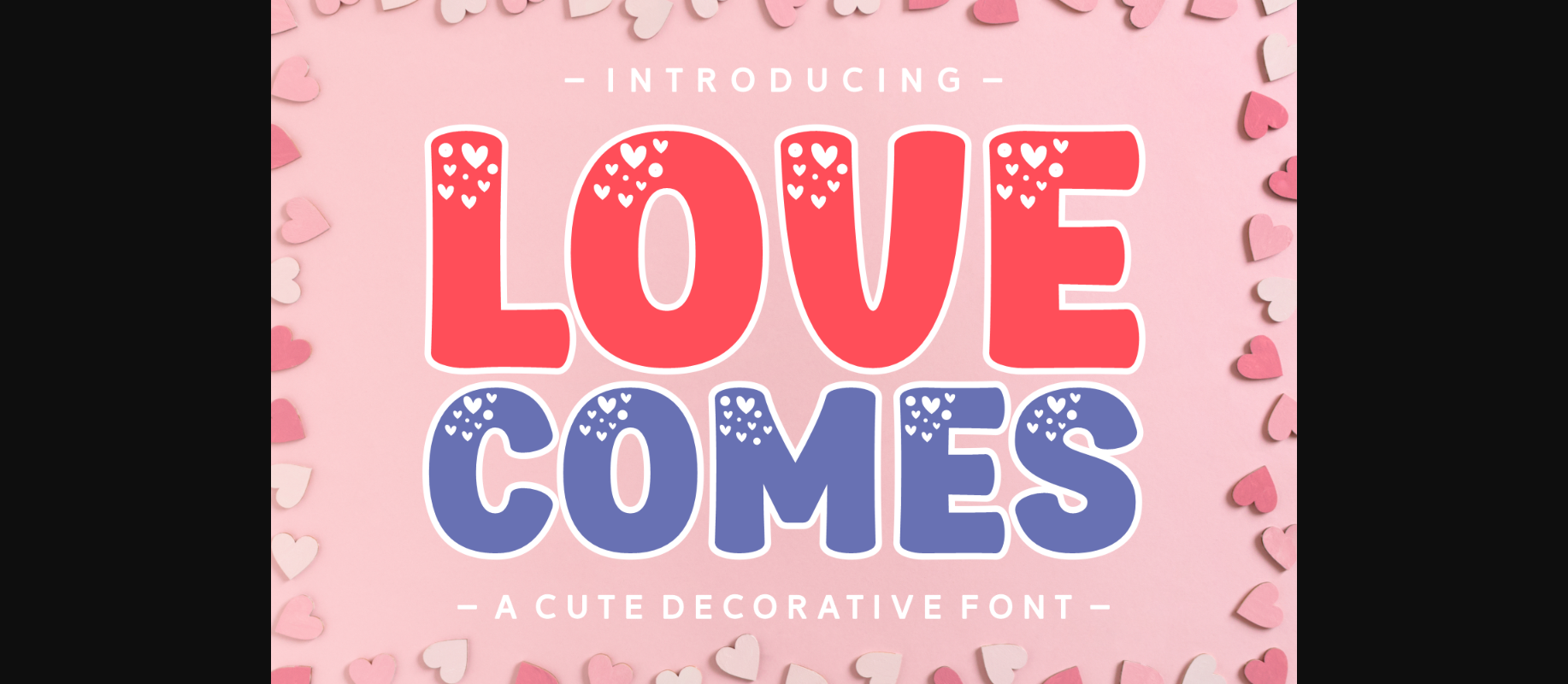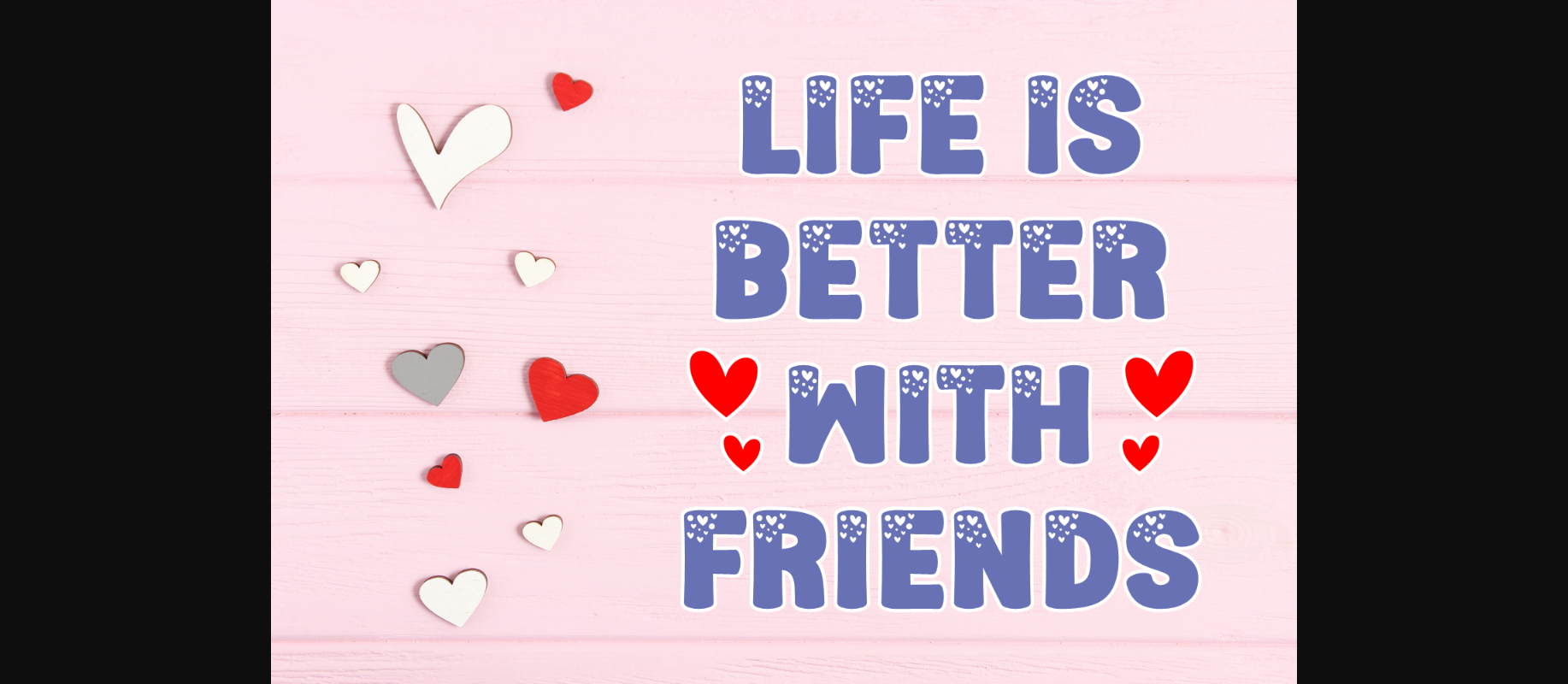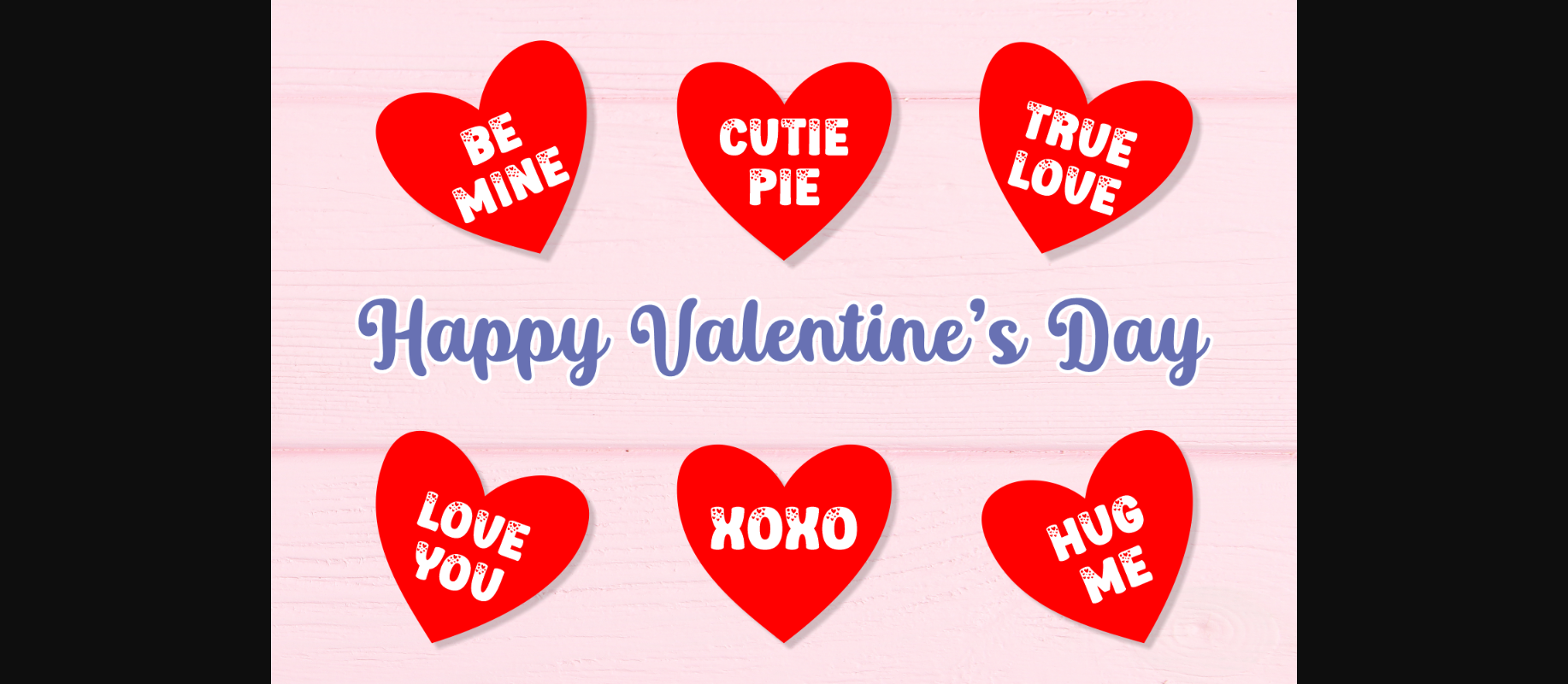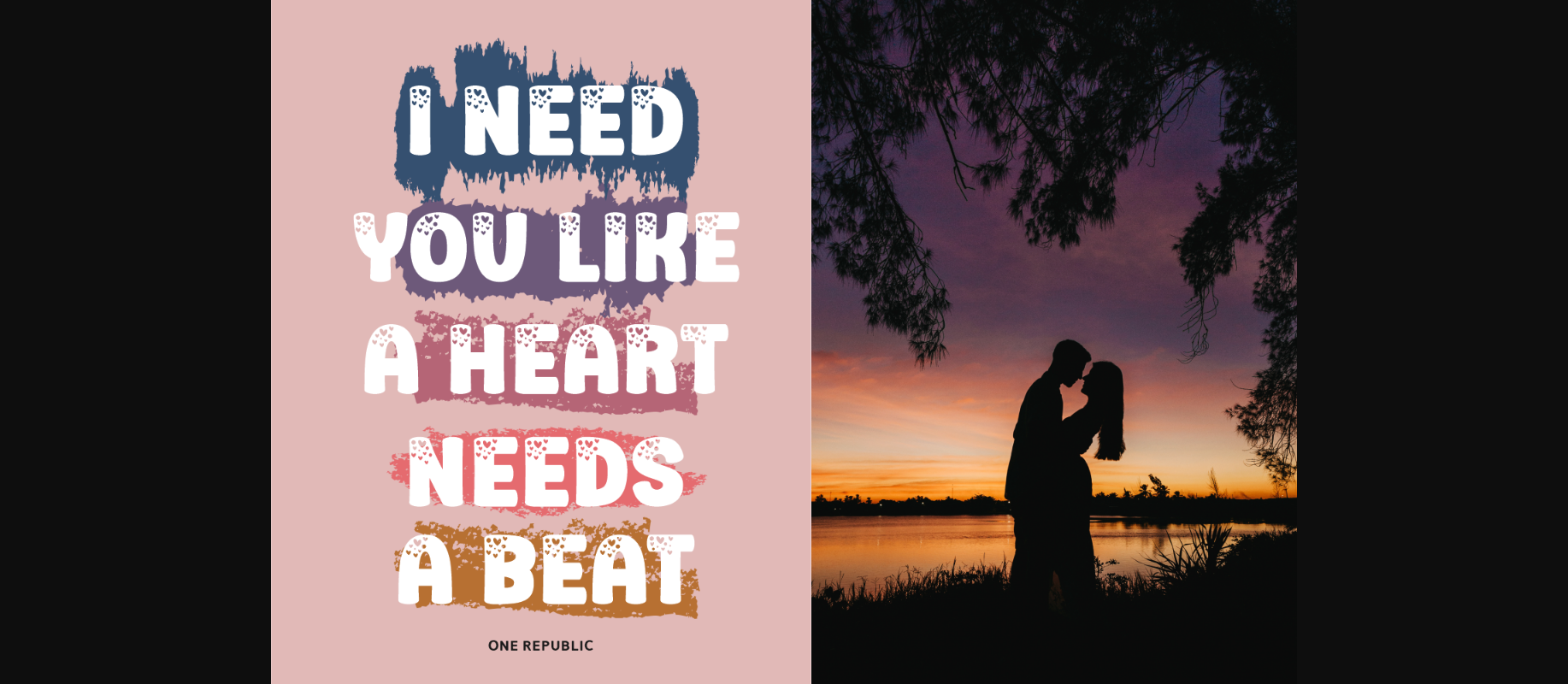
About Love Comes Font
Love Comes is a delightful chubby font, sprinkled with tiny hearts for a sweet touch. Its playful and endearing design adds a lovable vibe to your text. Perfect for spreading warmth and joy in your messages, Love Comes is an adorable choice for any project that needs a touch of affectionate charm.